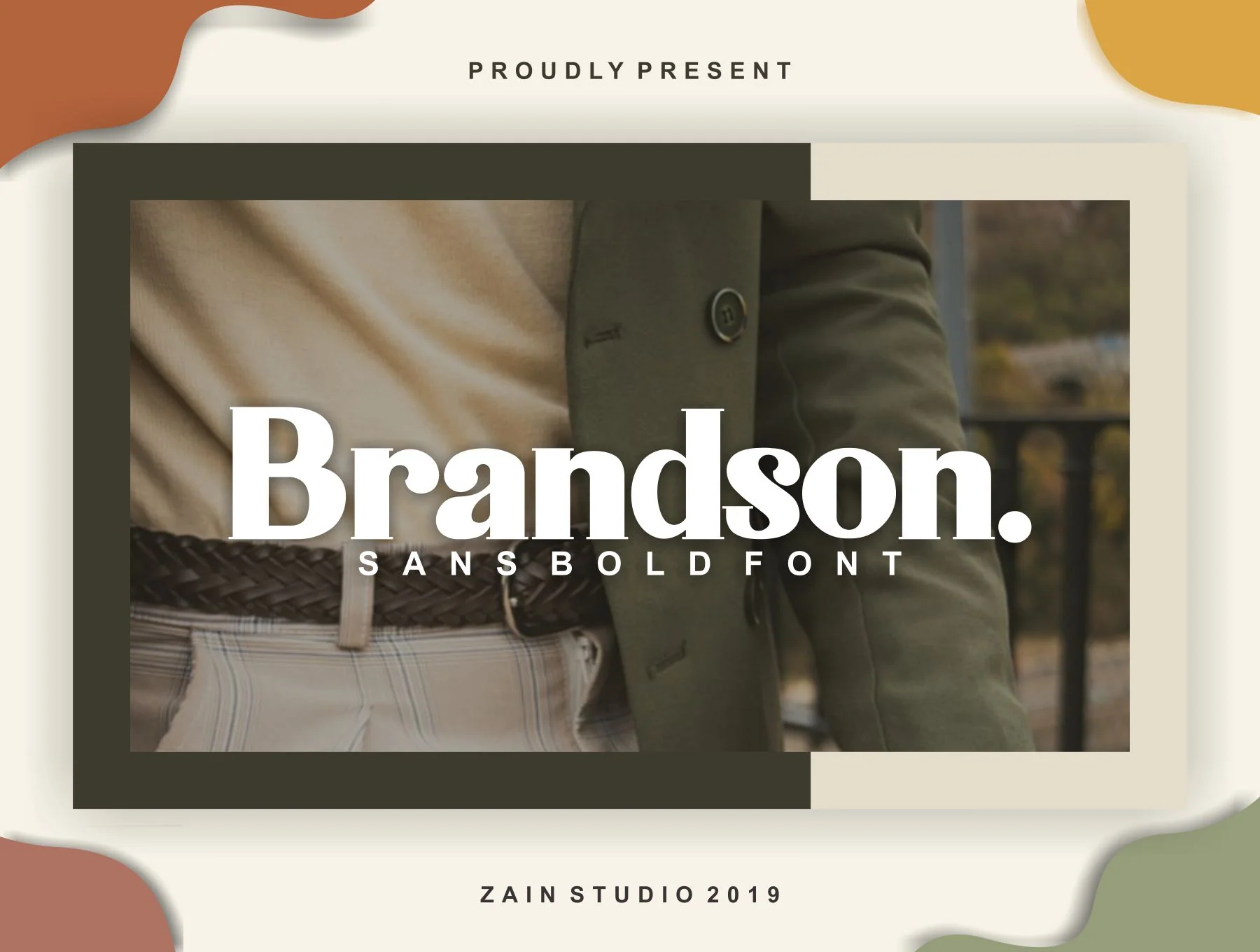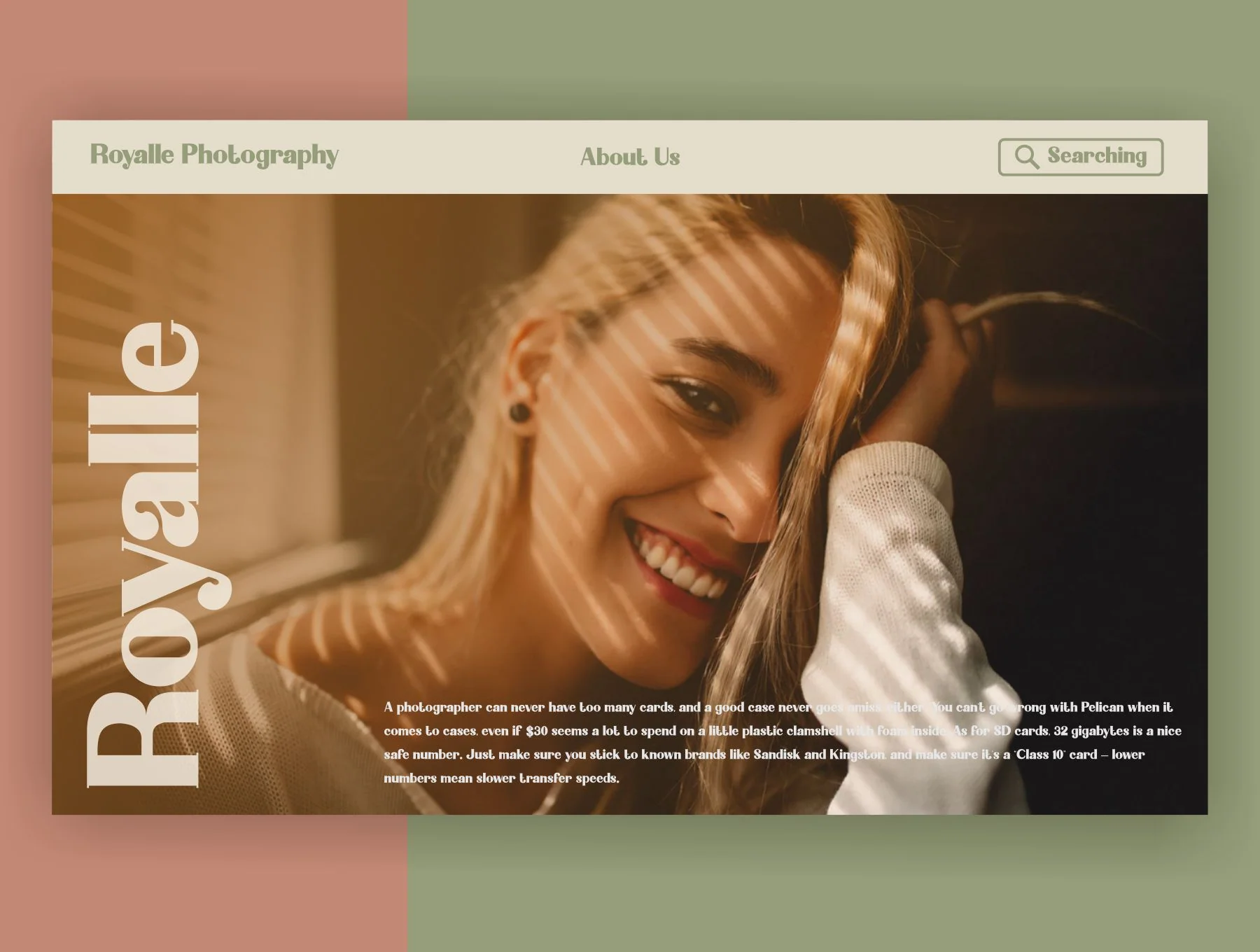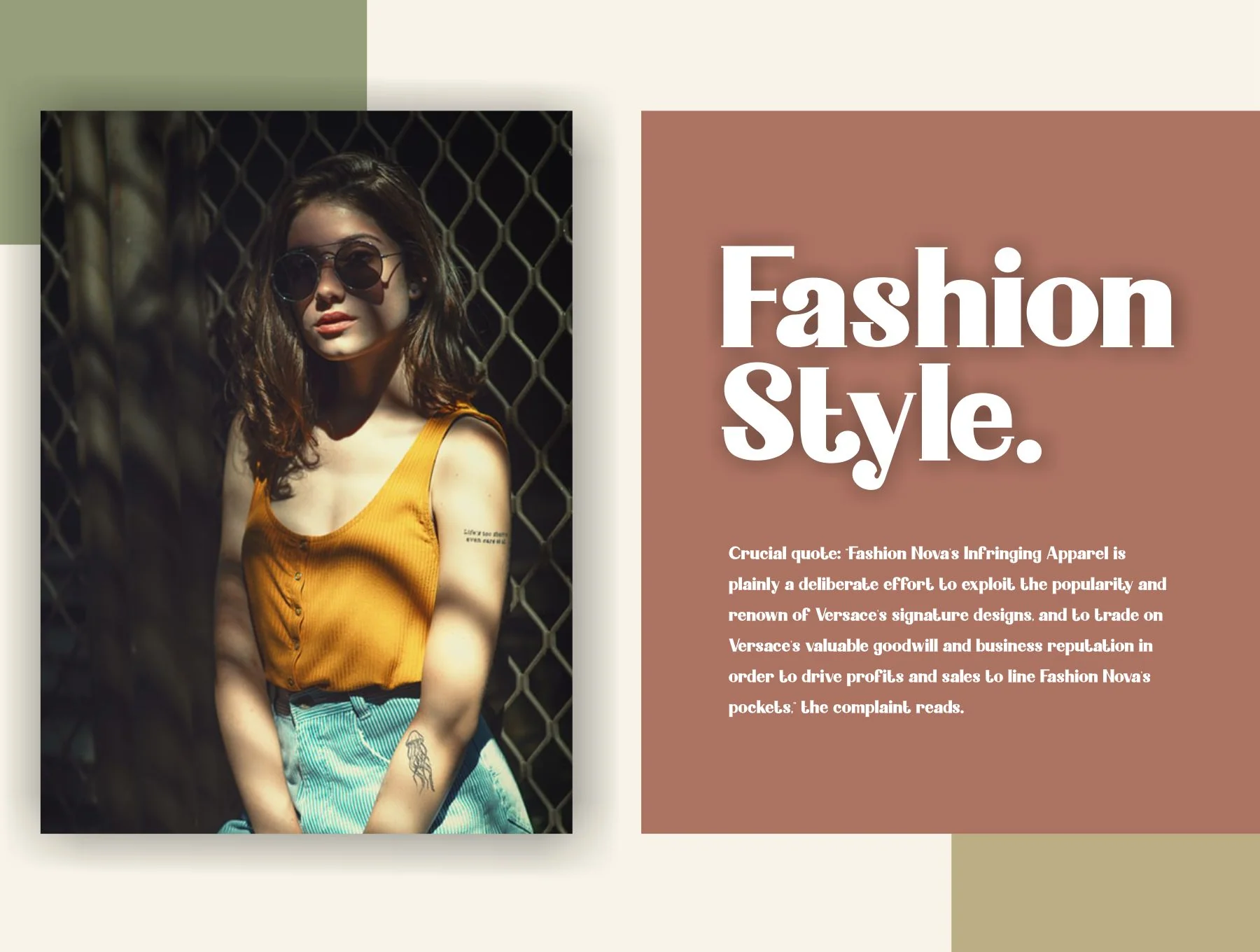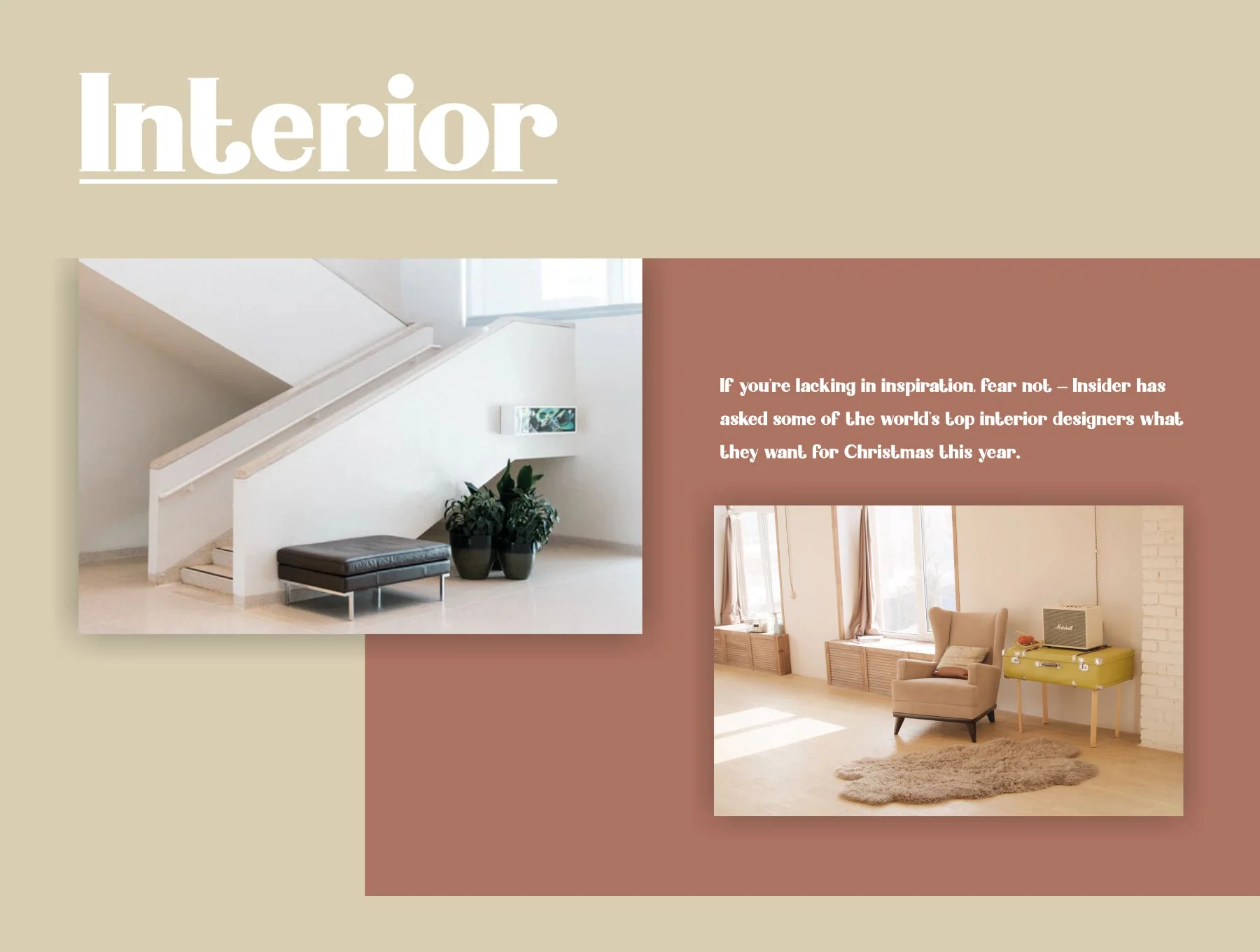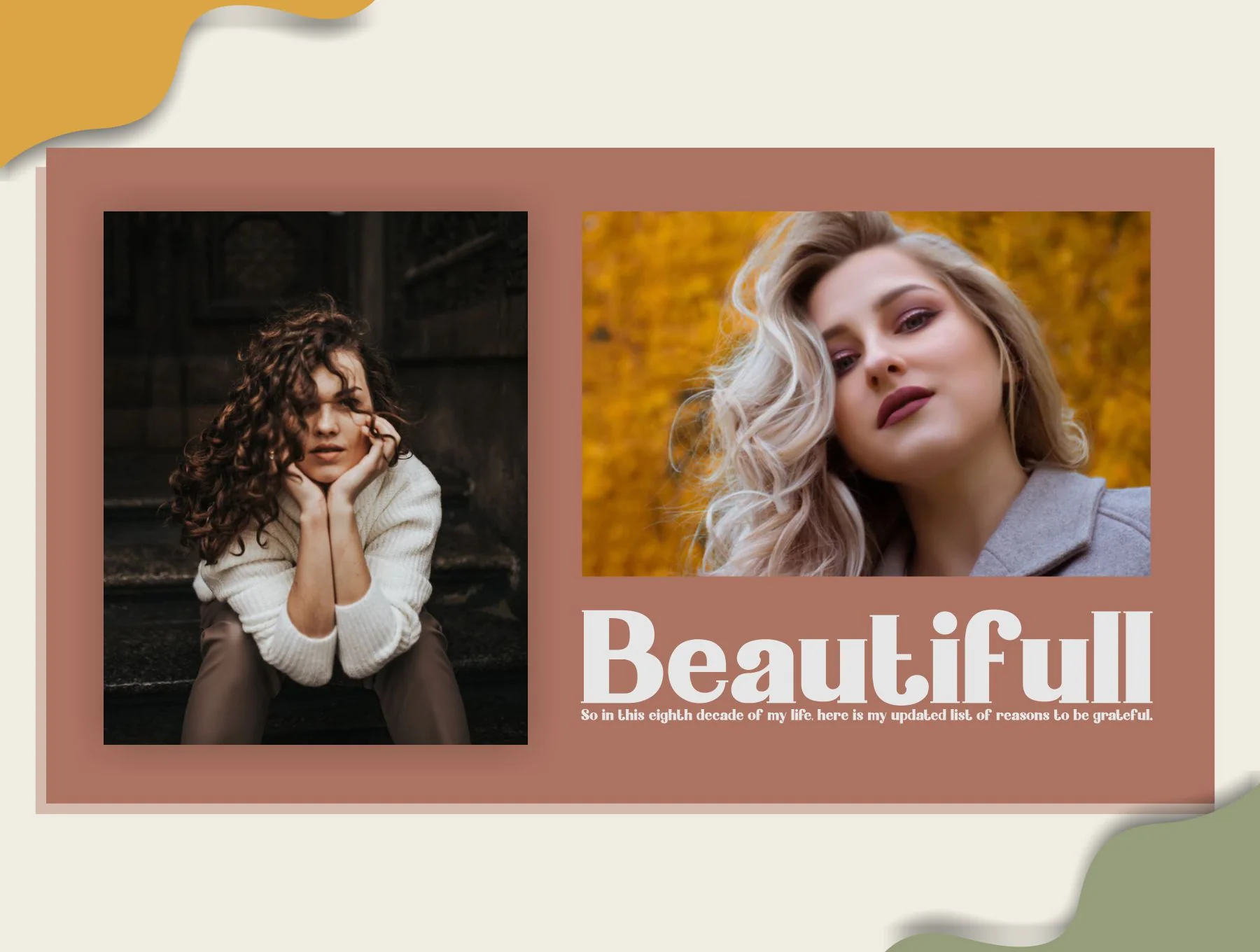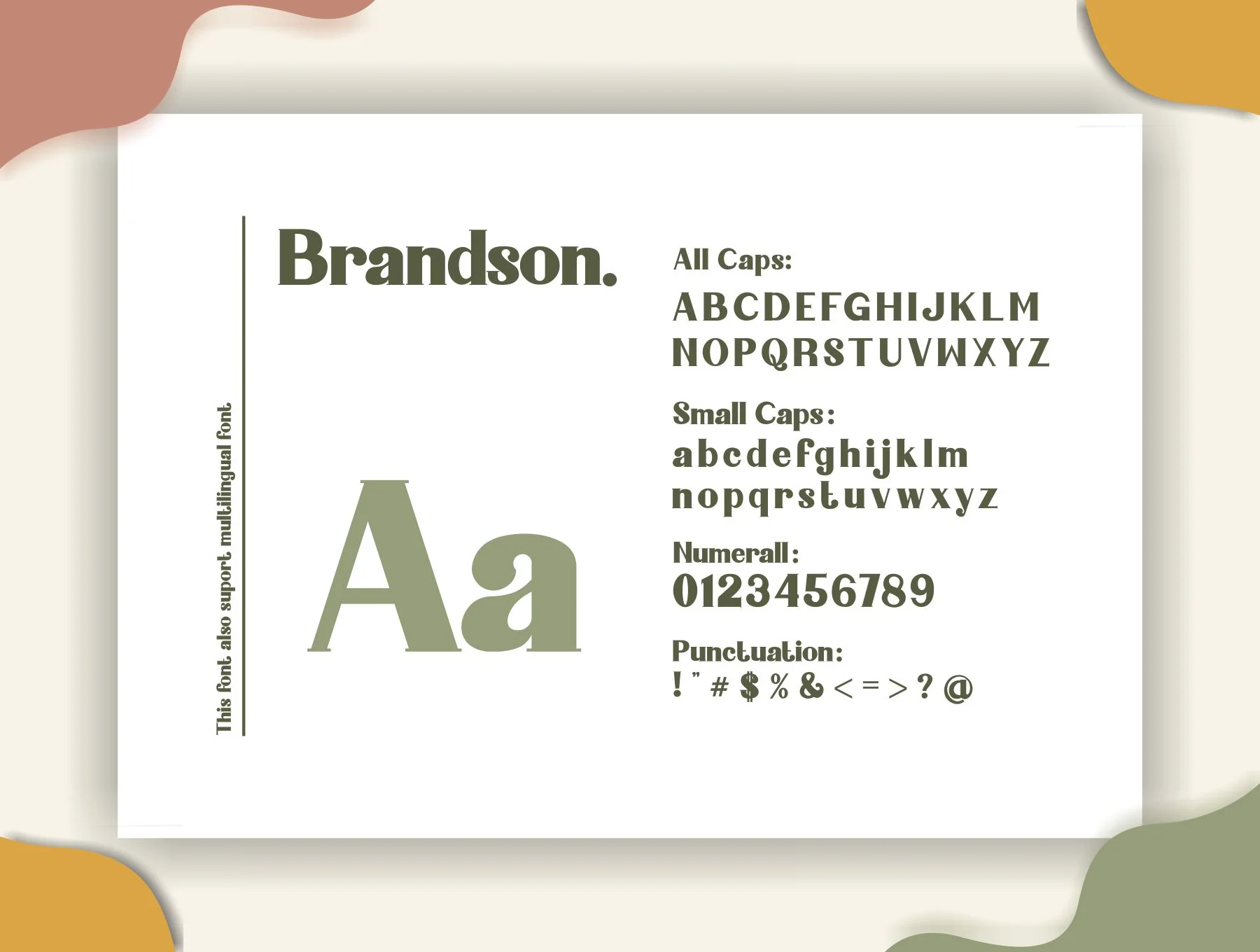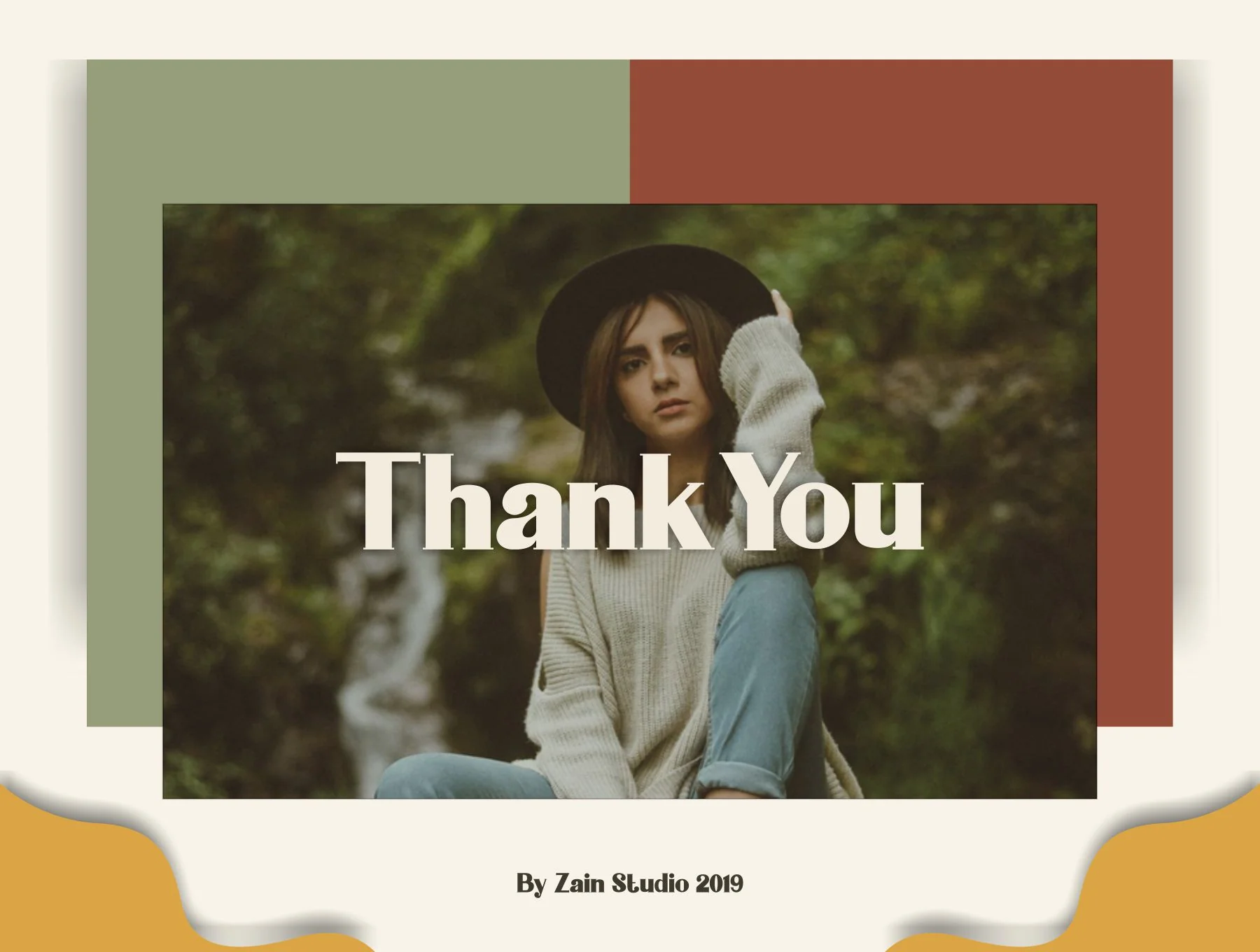
Brandson Sans Bold Font
Brandson is a striking typeface
Brandson is a striking, refined serif typeface with a modern feel, ideal for giving any creative project a polished and memorable look.